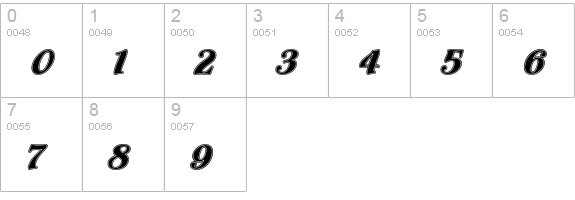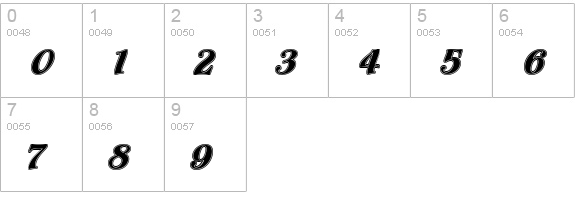
Flamenco Inline Std Font Details
Flamenco Inline Std is a captivating and elegant font that exudes a sense of sophistication and flair. Its intricate details and stylish design make it perfect for adding a touch of glamour to any project. This versatile font is ideal for creating eye-catching headlines, posters, invitations, and more. The best part? Flamenco Inline Std is available for free download at FontsMarket.com. So go ahead and elevate your designs with this stunning font that will surely make a statement. Whether you're looking to add a touch of drama or a hint of romance, Flamenco Inline Std has got you covered. Download it now and let your creativity shine!